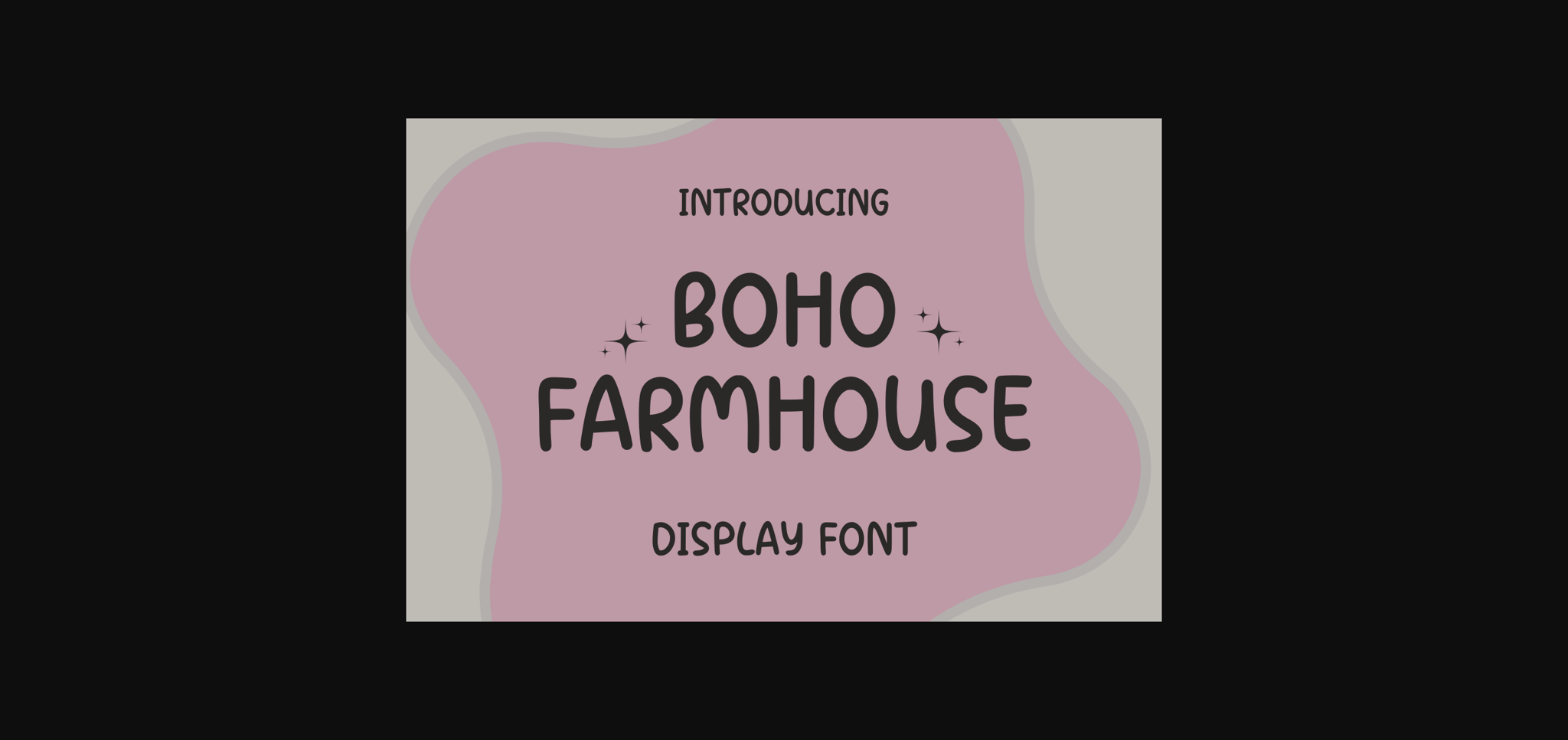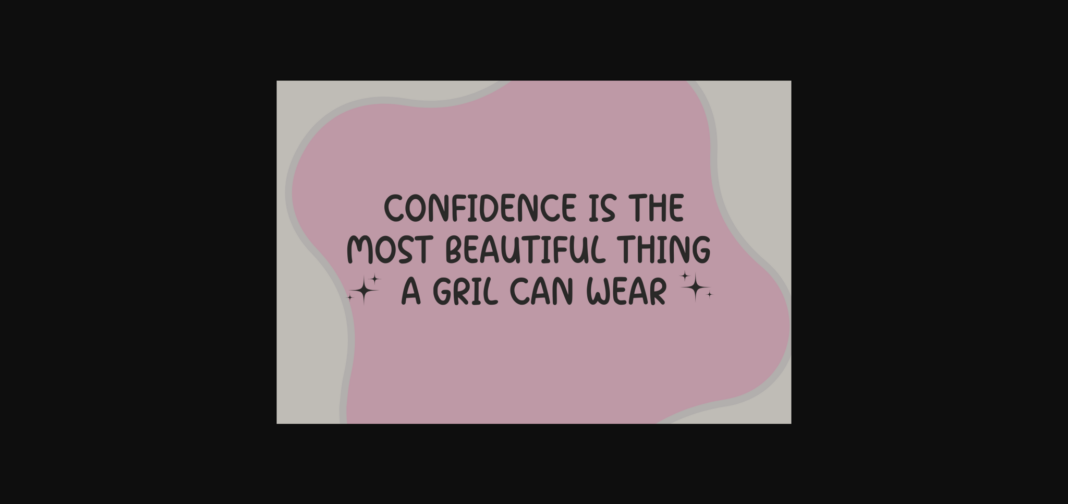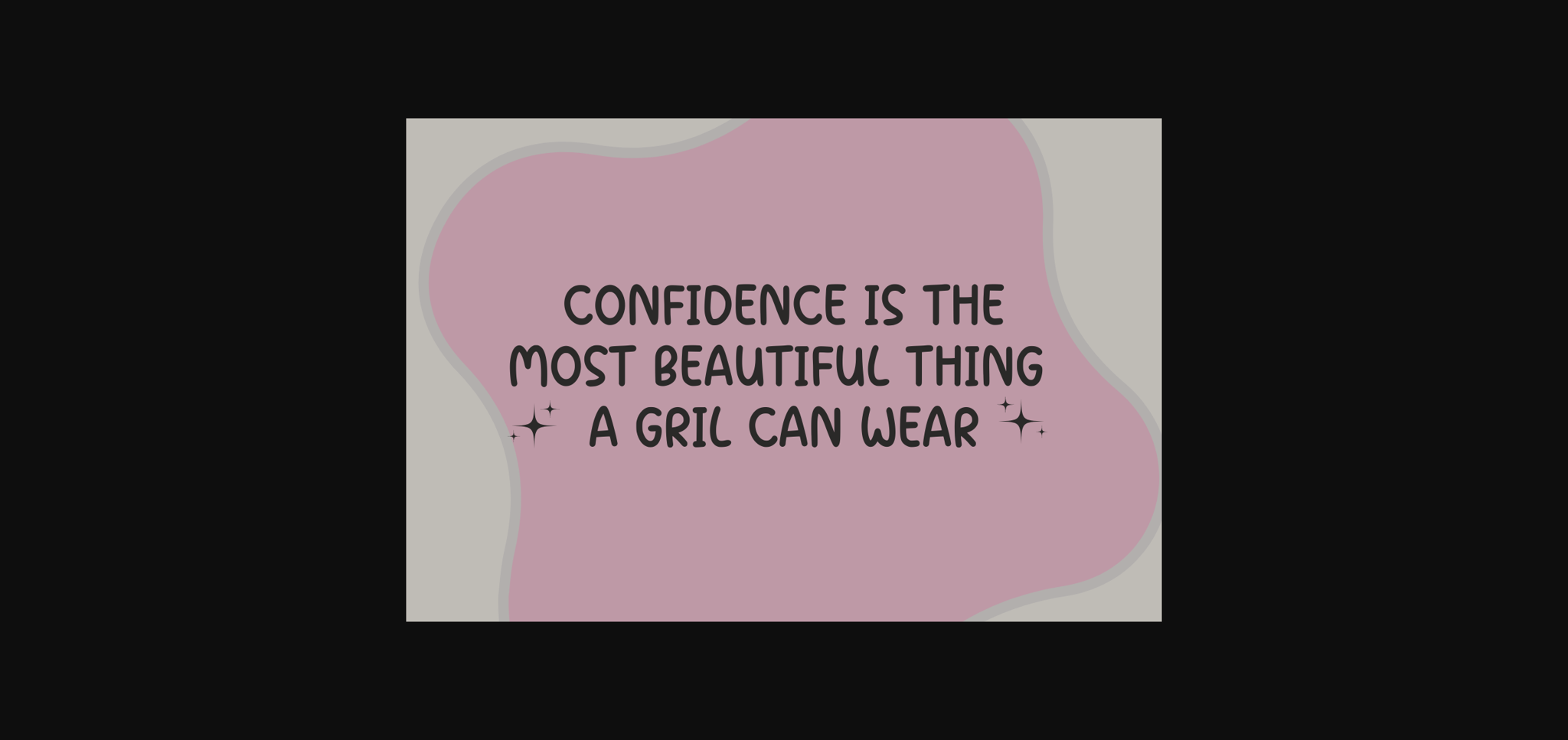
About Boho Farmhouse Font
Boho Farmhouse is a cute and playful sans-serif font. Whatever the topic, this font is perfect for your creative craft needs!